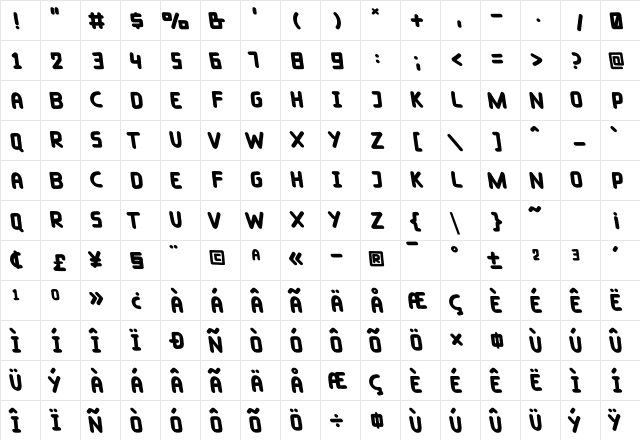
Taylorsit Oblique Regular
| Foundry | Kong Font |
| Designer | Kong Font |
Design Context for Taylorsit Oblique Typeface
Taylorsit Oblique offers clean, dependable letterforms without strong stylistic allegiance, making it a practical choice for designers who need flexibility. Its italic angle brings a sense of urgency and motion to the letterforms.